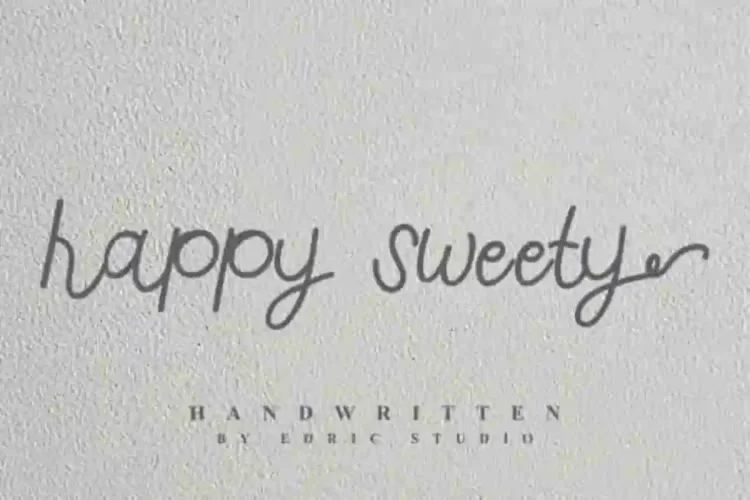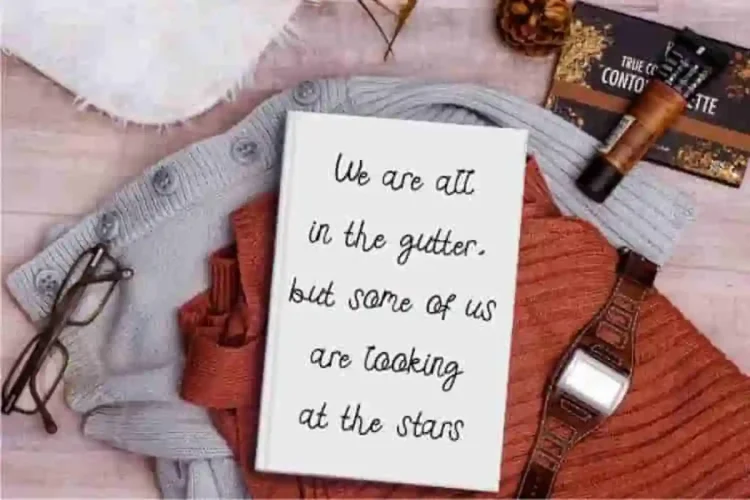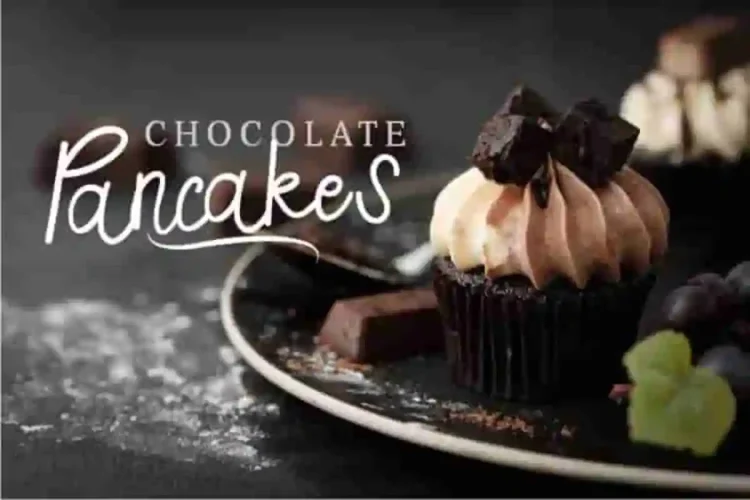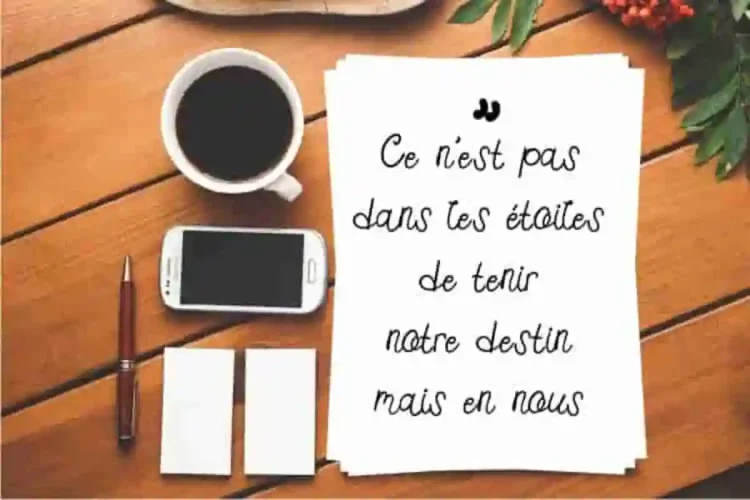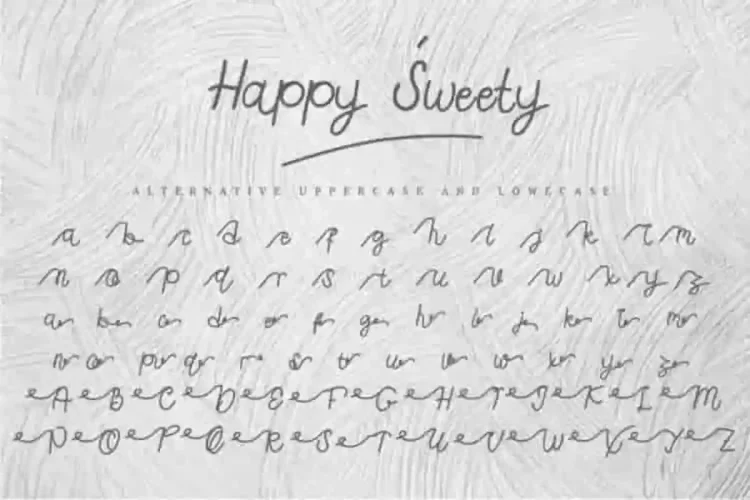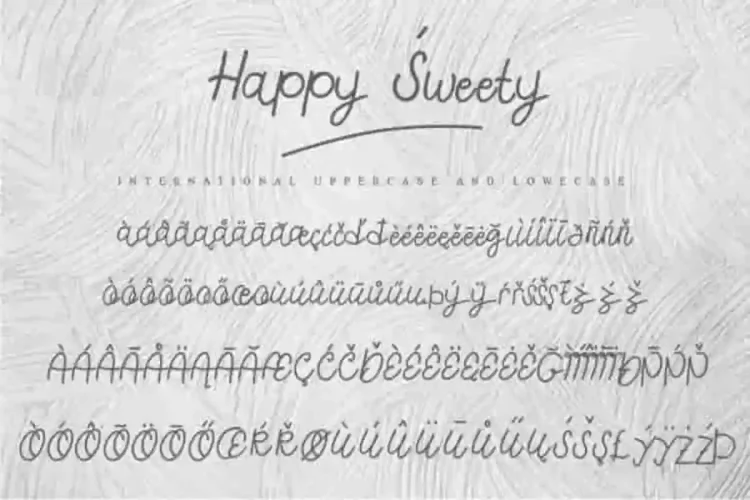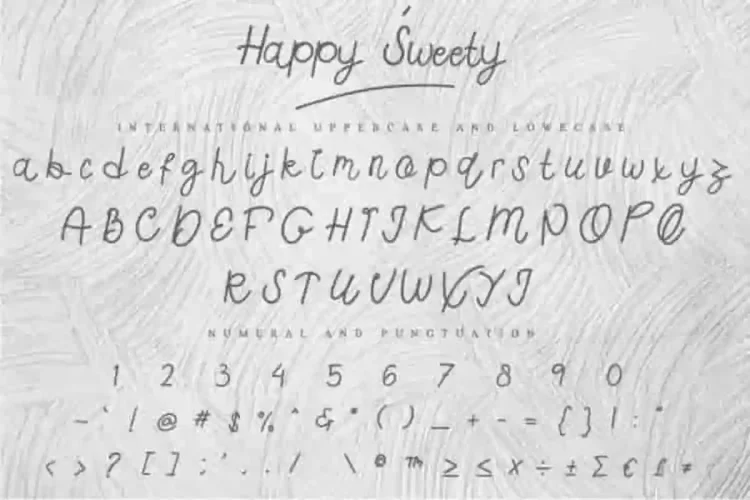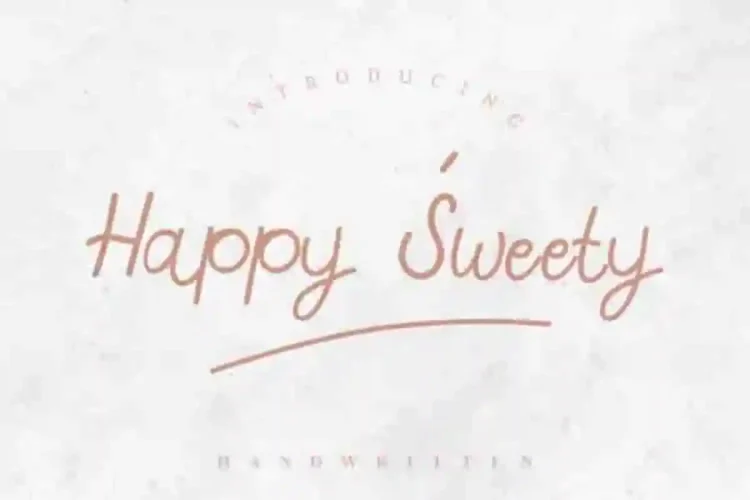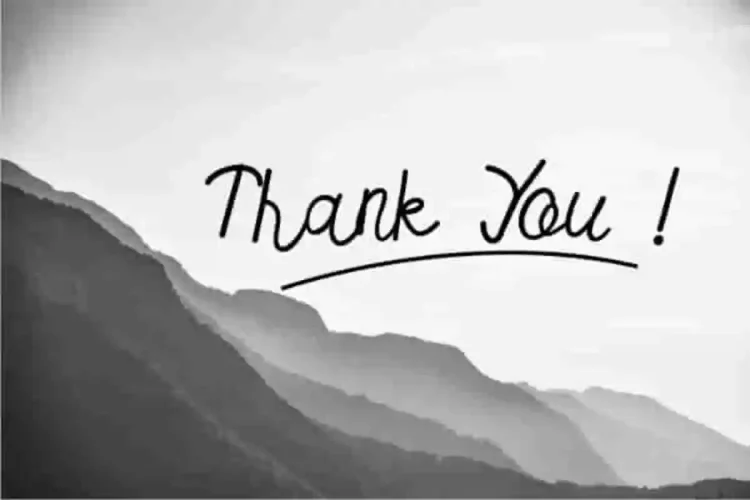
Happy Sweety Handwritting Font
Hello, please meet, our new script font : Happy Sweety
Happy Sweety Font is a monoline script Font with stunning shape of letters and glyphs.
As a monoline handwritting, Happy Sweety Font is a great match for many designs project and products. With an extended license, you can make it as a logo, branding, cover, stationery, card, signage, flyer, brochure, promotion etc.
It is a beautiful font script on monoline style. You’ll be amazed with the style